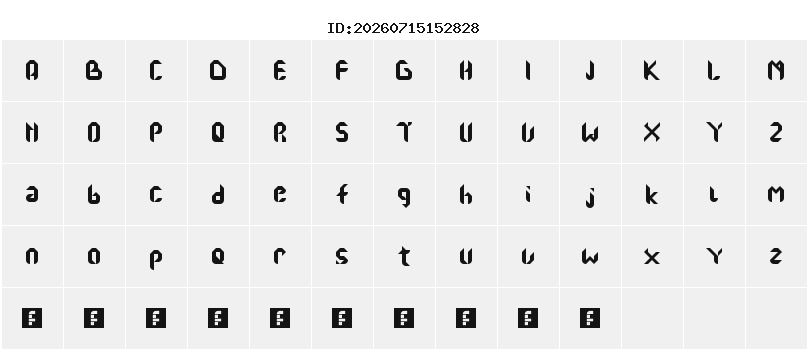
aha na masa? Preview
• Designer: parhudamdam
• Description: “aha na masa?” was built with FontStruct
About aha na masa?.ttf
aha na masa?.ttf is a modern, elegant sans-serif font designed for ultimate readability and visual harmony. Perfect for branding, headlines, web design, and print materials.